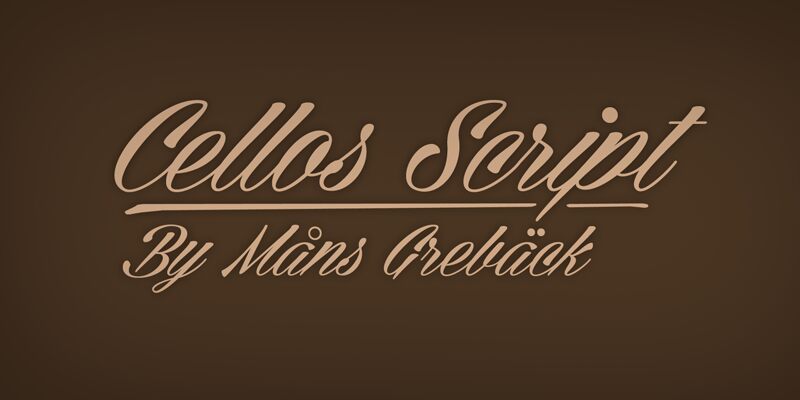
Cellos Script by Mans Greback is a free calligraphic script with a formal, sweeping silhouette. Tall flourished capitals rise above the line, and broad downstrokes taper into hair-thin curves. Its connecting strokes flow at a brisk pace.
The looping letters can echo ribbon illustrations and fine ornamental borders on wedding invitations, beauty packaging, fashion editorials, and boutique branding. These settings share a taste for fine penwork and prominent, embellished capitals.